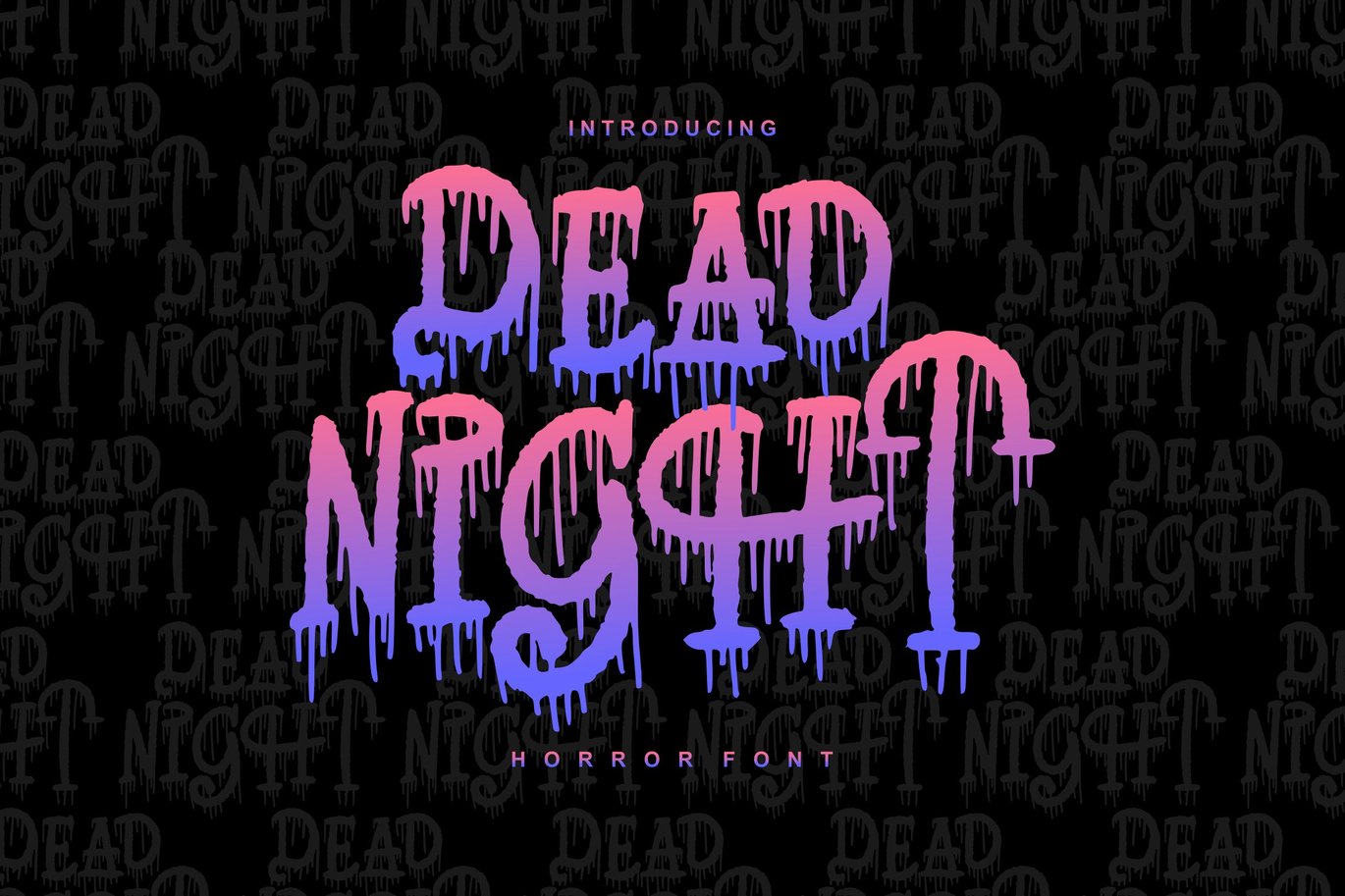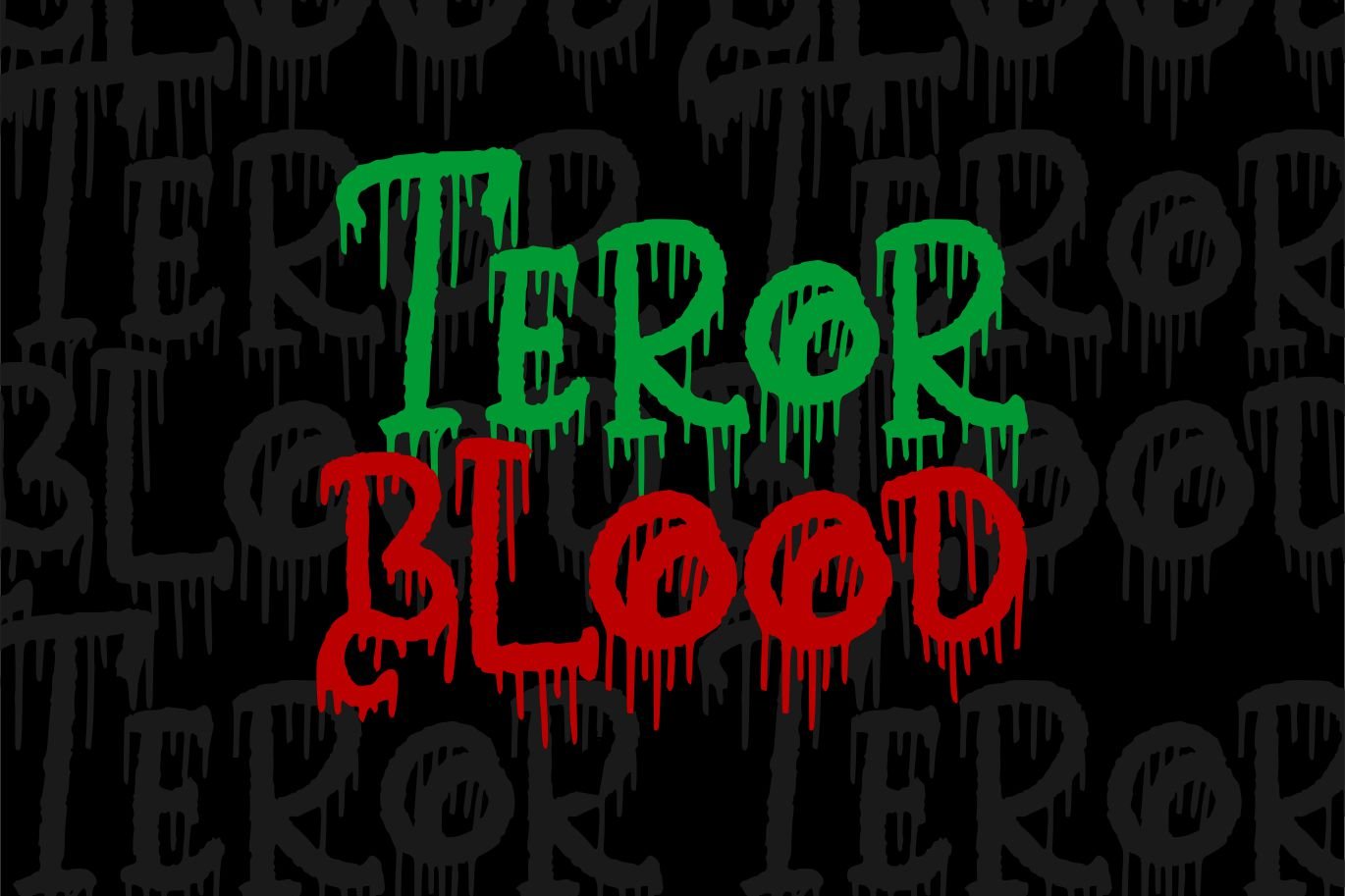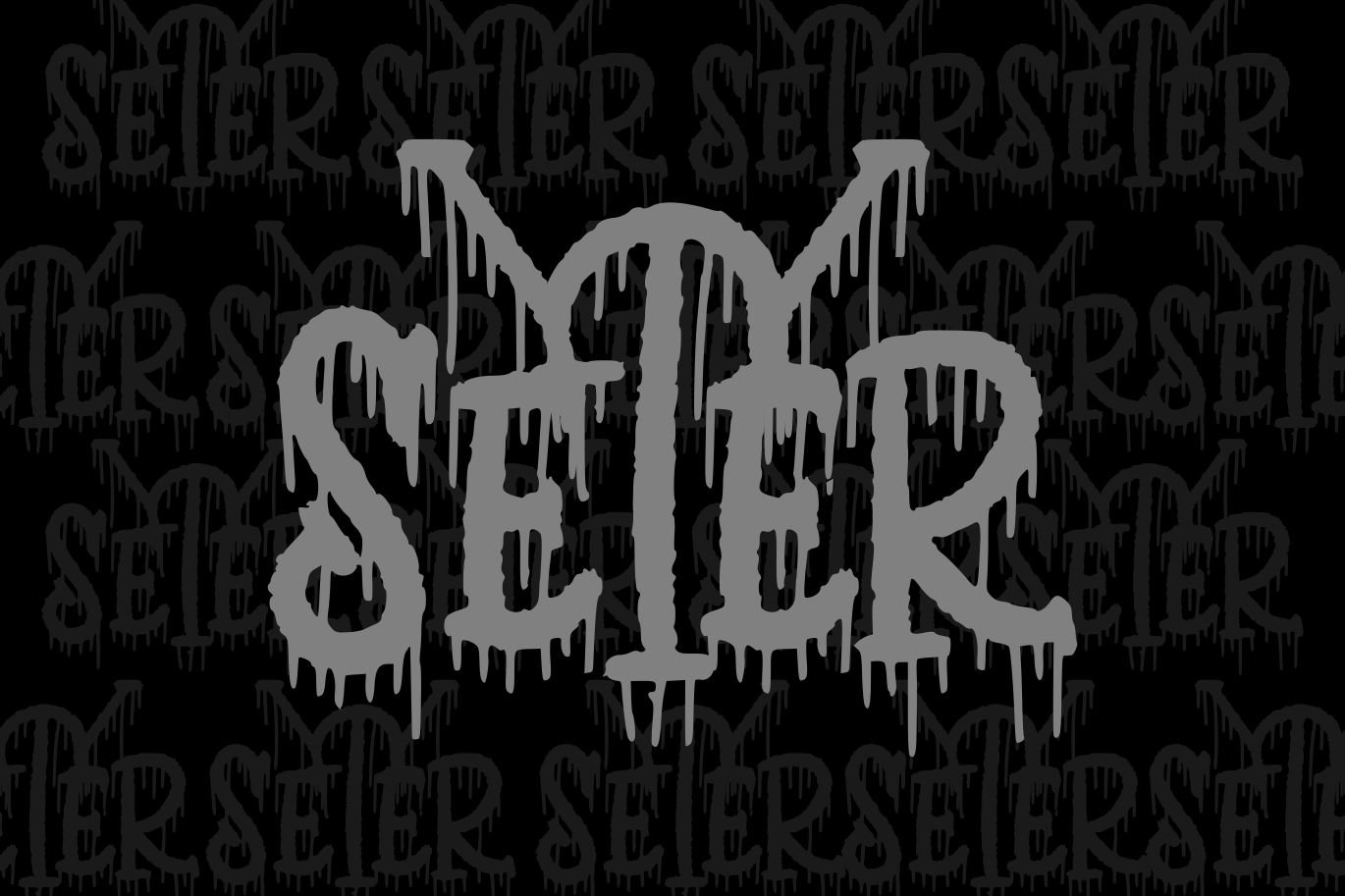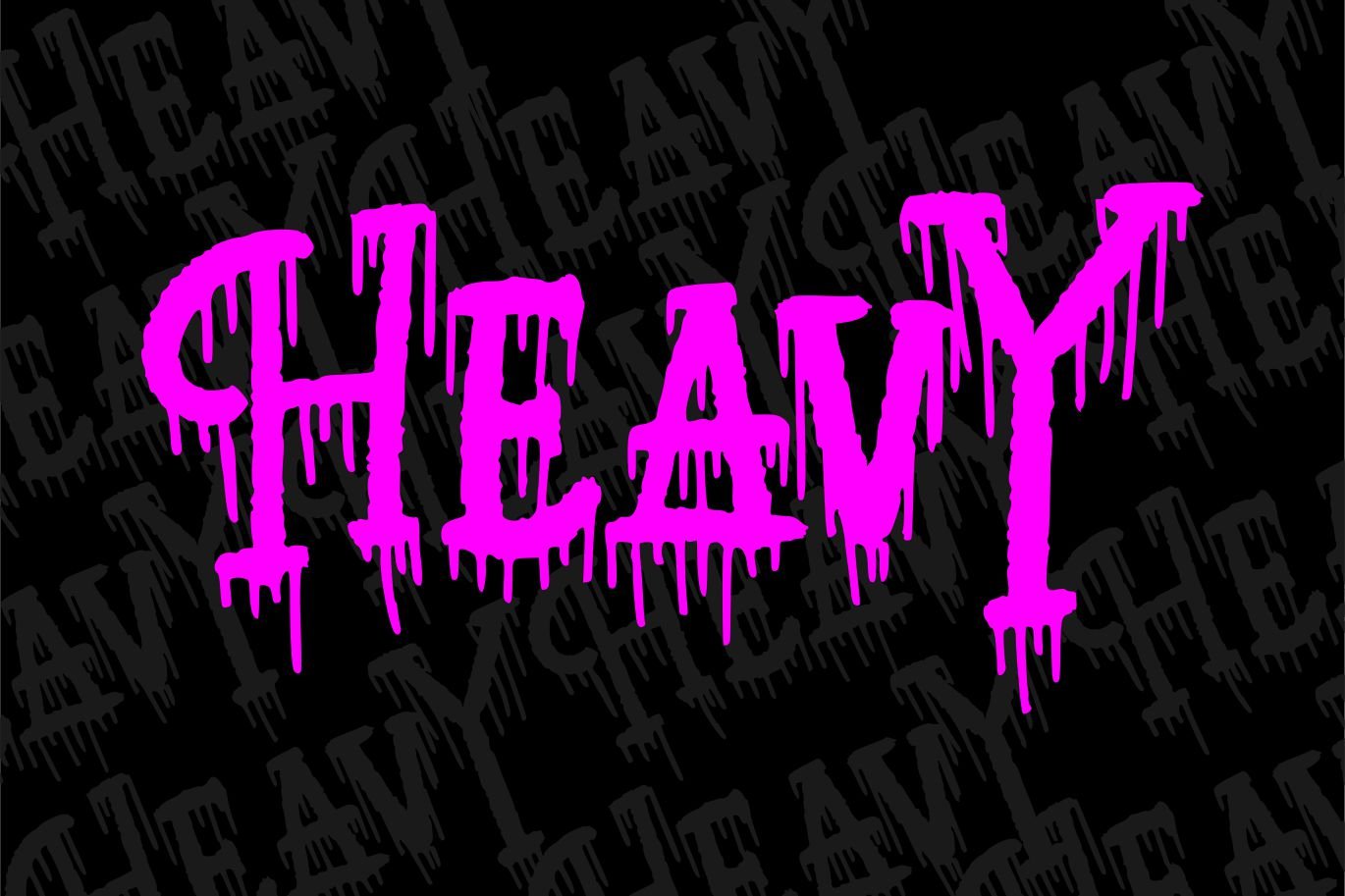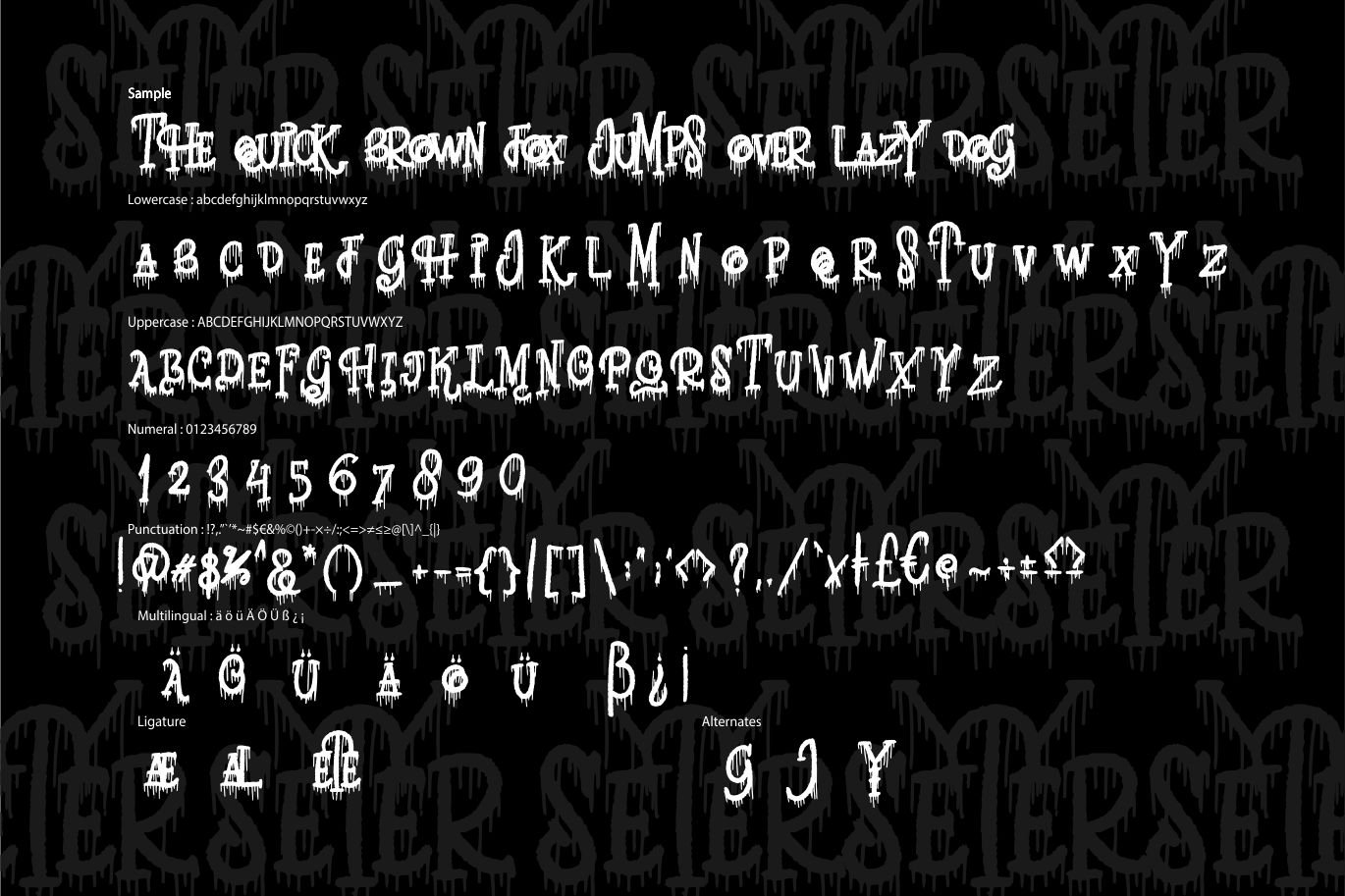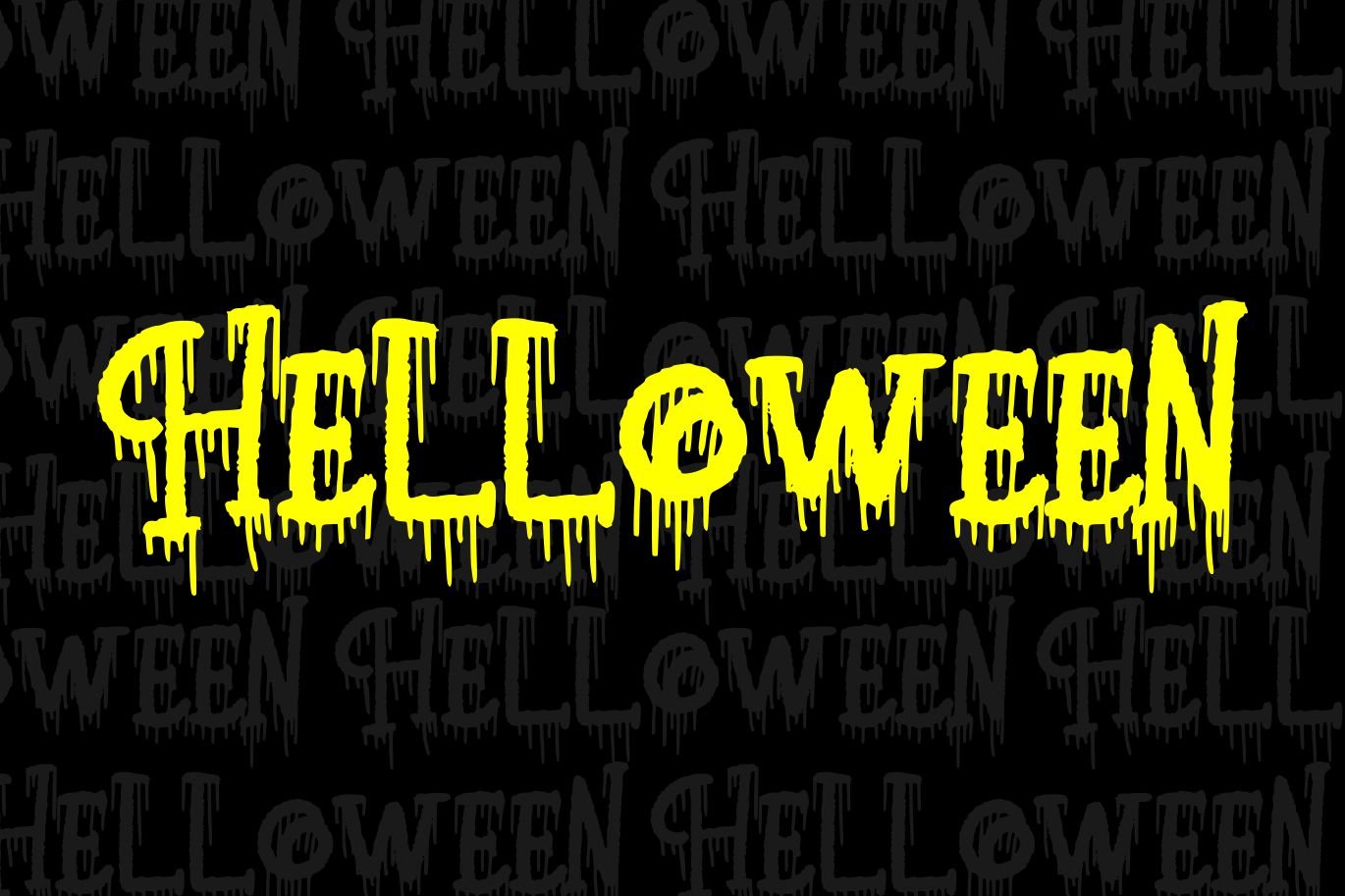
Dead Night | Horror Font
Dead Night | Horror Font with a calligraphy style, So beautiful on invitation like greeting cards, branding materials, business cards, quotes, posters, and more!